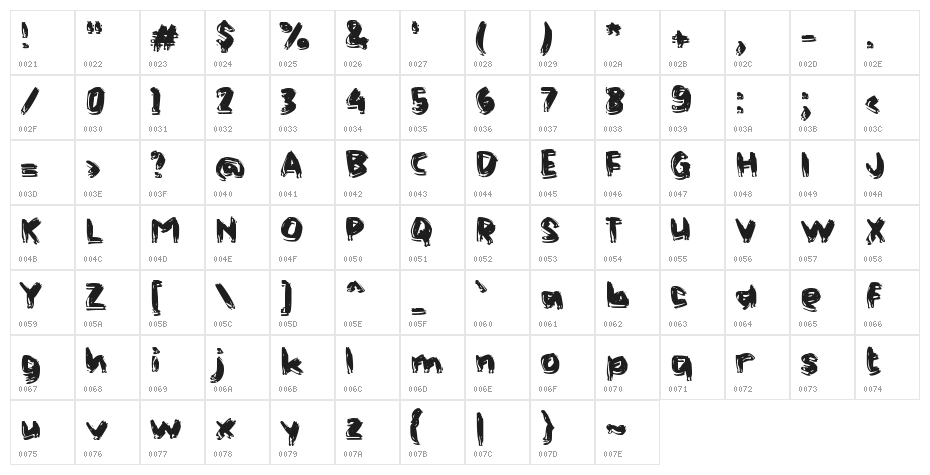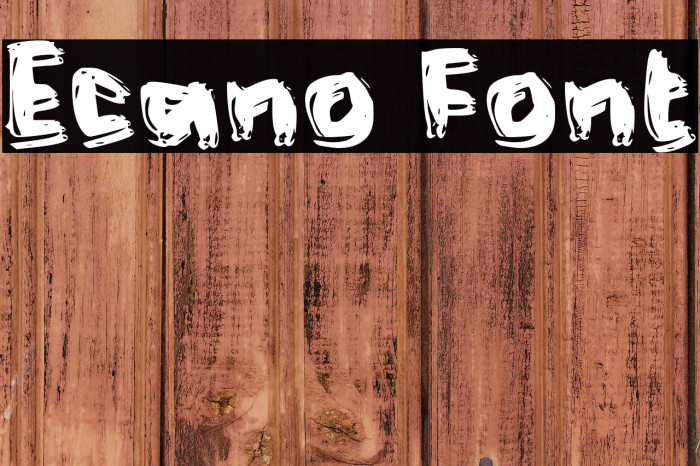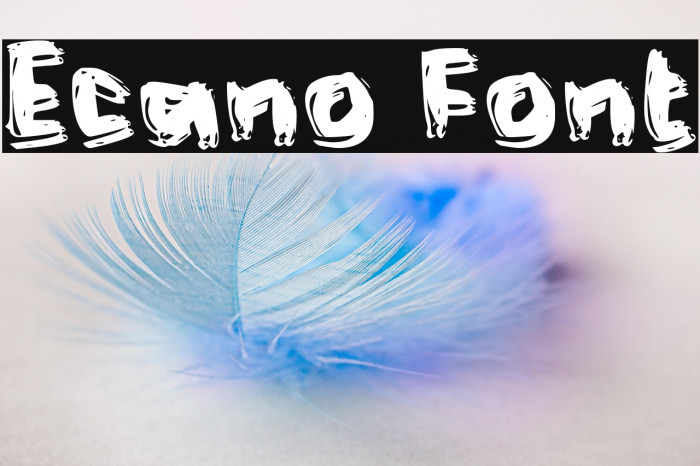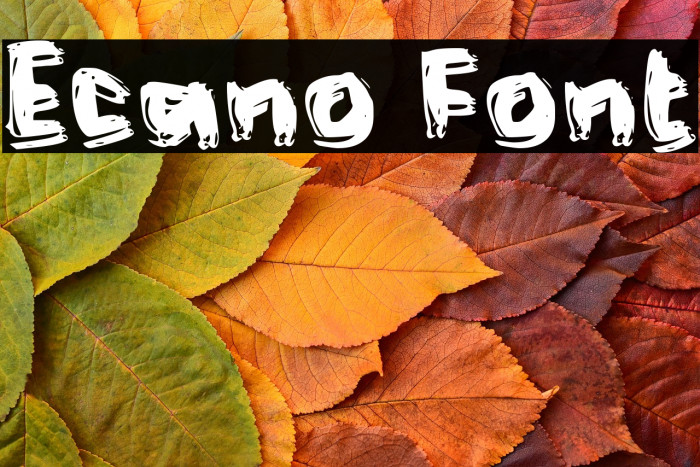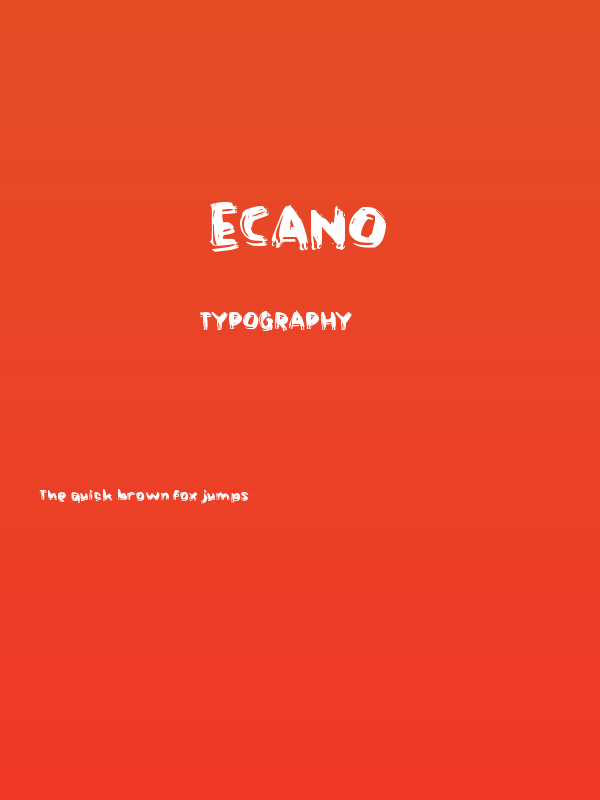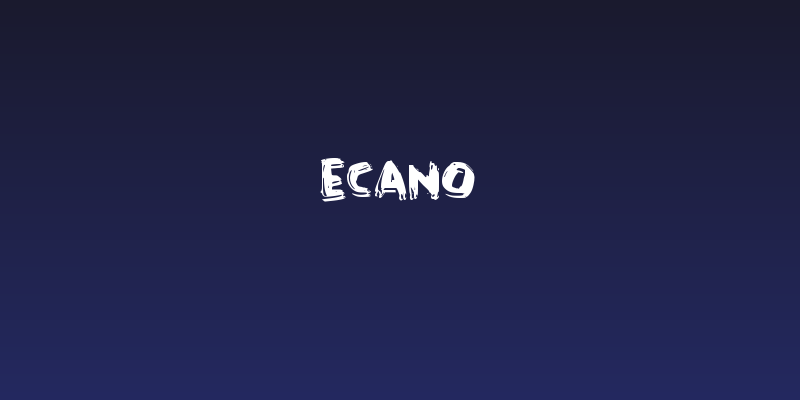
Ecano Font
Ecano Description
This font features a bold and expressive style, characterized by its brush-like strokes and dynamic, energetic appearance. The letters have a hand-painted quality, with uneven edges and a sense of movement that suggests spontaneity and creativity. The uppercase and lowercase letters maintain a consistent style, while the numbers and special characters complement the overall aesthetic. This font's unique design makes it stand out, offering a visually striking option for projects that require a bold statement.
| Overall Style | Modern, Artistic |
| Proposed Projects | Ideal for posters, album covers, artistic branding, and any project requiring a bold, creative touch. |